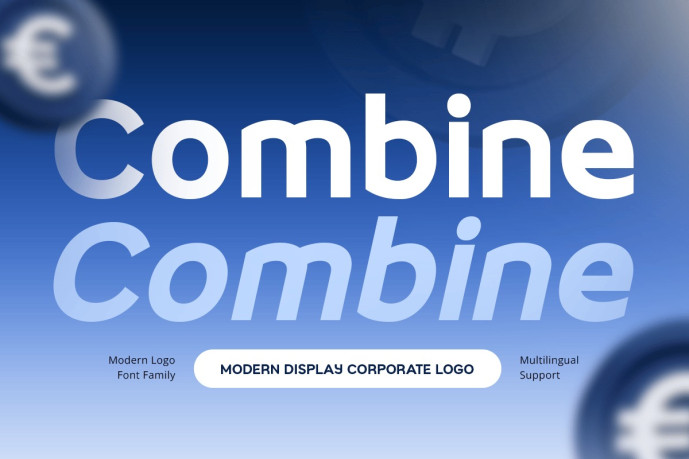
Combine – Modern Display Corporate Logo Font
Combine – Modern Display Corporate Logo Font is a modern display font crafted for corporate branding, professional logo design, business identity systems, and contemporary visual communication. Inspired by clean corporate aesthetics and modern branding strategies, Combine delivers a distinctive display style while maintaining the professionalism required for business-focused design.
Featuring bold display letterforms, balanced proportions, and a refined modern structure, Combine creates memorable logos and impactful brand identities with exceptional readability. Its versatile design is optimized for logos, headlines, marketing materials, and digital branding, making it a valuable asset for businesses and creative professionals alike.
Whether you’re launching a startup, refreshing a corporate identity, designing a business logo, or creating professional marketing assets, Combine provides the bold typography needed to strengthen your brand and leave a lasting impression.
Combine Font Features
Character Set: Uppercase, lowercase, numbers, symbols, and punctuation
Modern display letterforms optimized for logo design and corporate branding
Available with regular and italic version
OpenType features ready to enhance your design needs